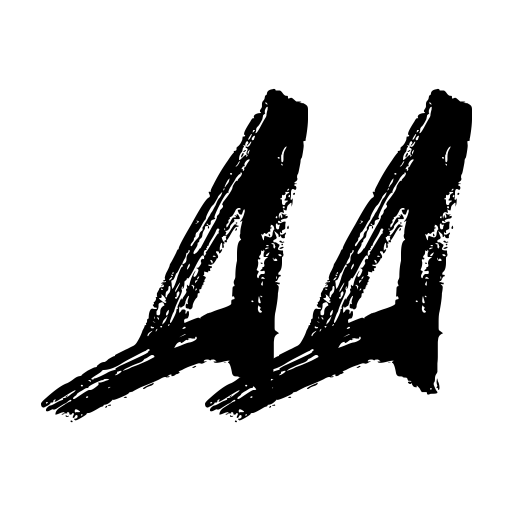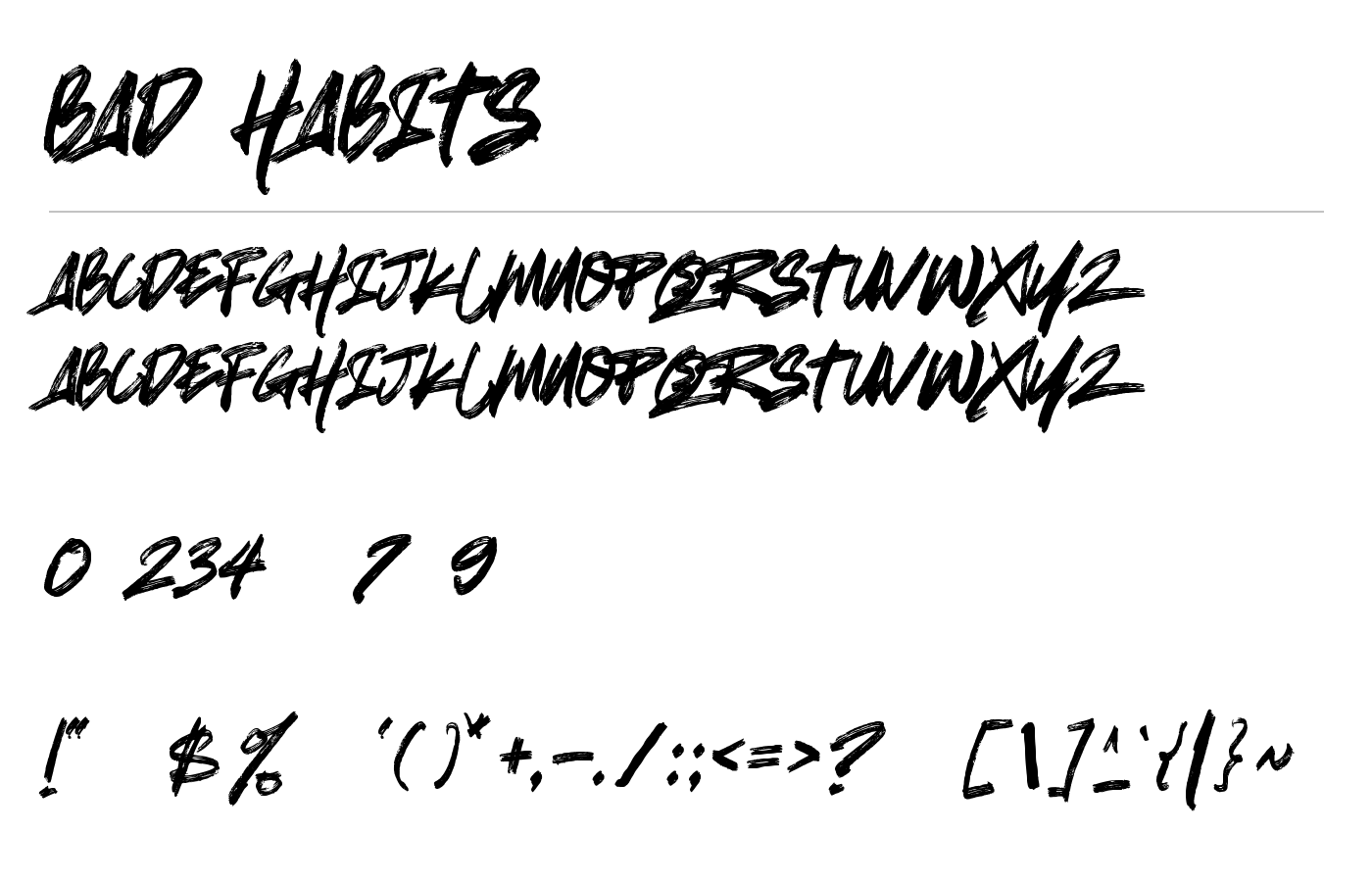
BAD HABITS is an expressive, bold script font with a rough, hand-drawn brush style that conveys energy and rebelliousness. Its irregular strokes and dynamic letterforms give it a gritty, urban feel, making it perfect for edgy branding, posters, or any design that needs a raw, intense vibe. This font works best in display uses where its spontaneous personality can shine.
BAD HABITS Font
About BAD HABITS Font
| Font family | BAD HABITS Font |
| Designer | Anang Fibriyanto | Cornertype™ Studio Indonesia |